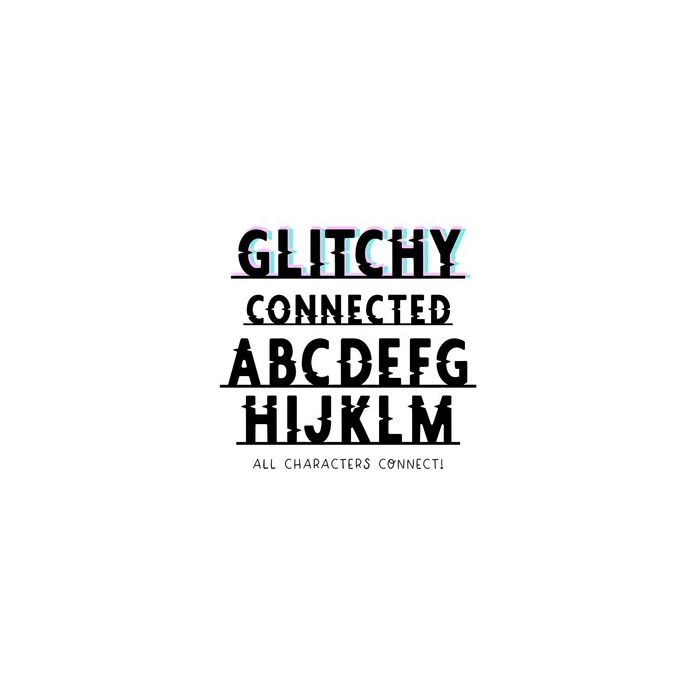
BFC Glitchy Connected Video Game Glitch Font
Glitchy Connected is a stylish display glitch font. All letters - even punctuation and numbers - connect!